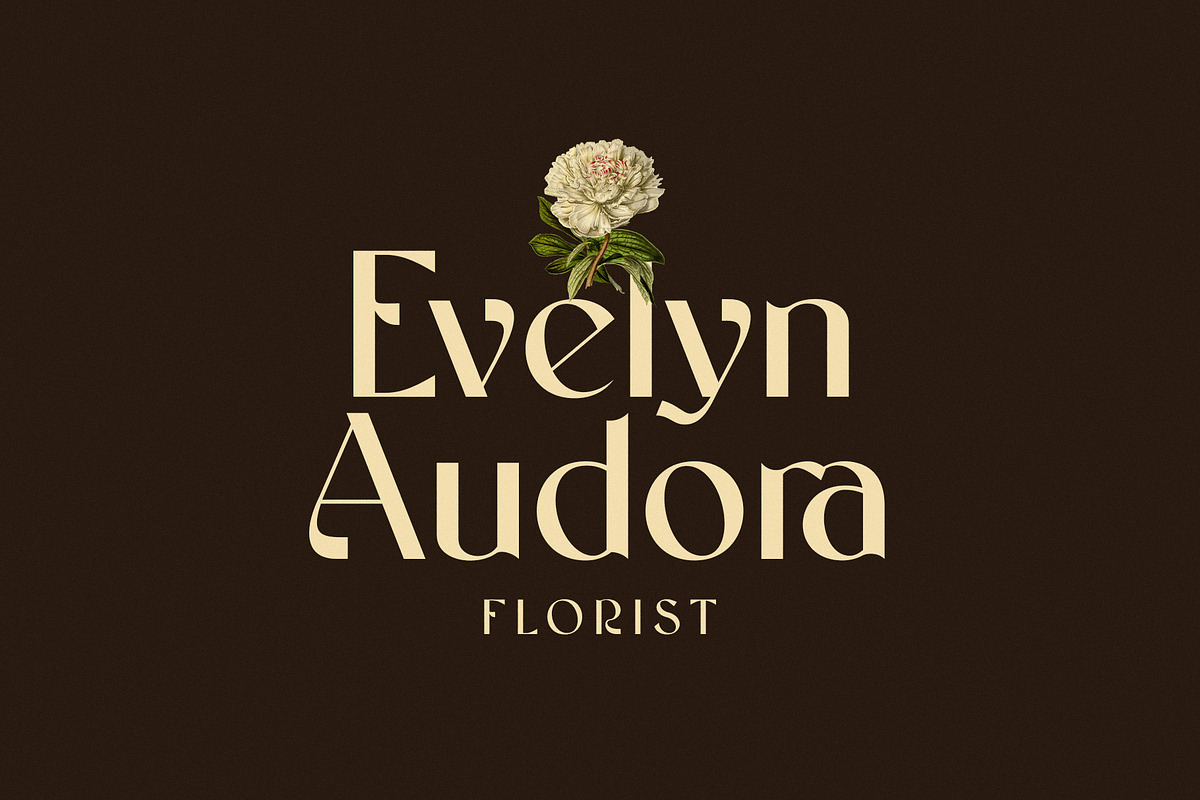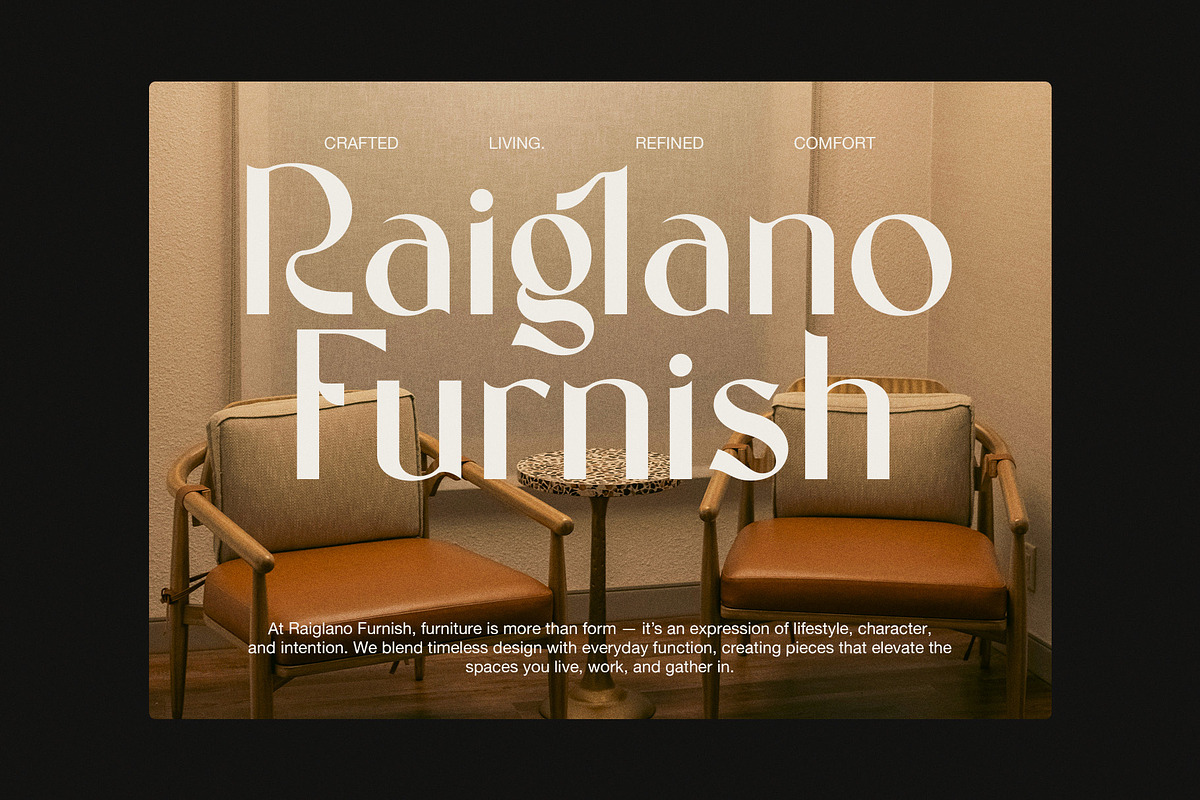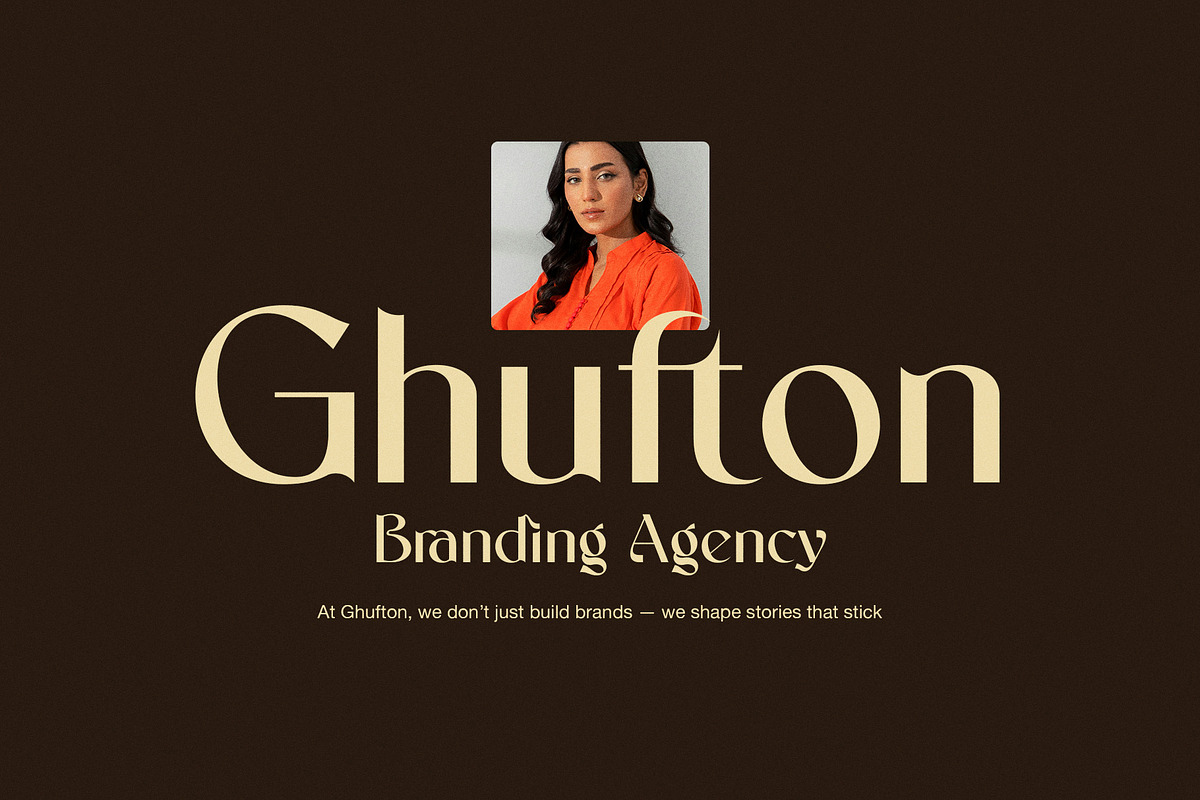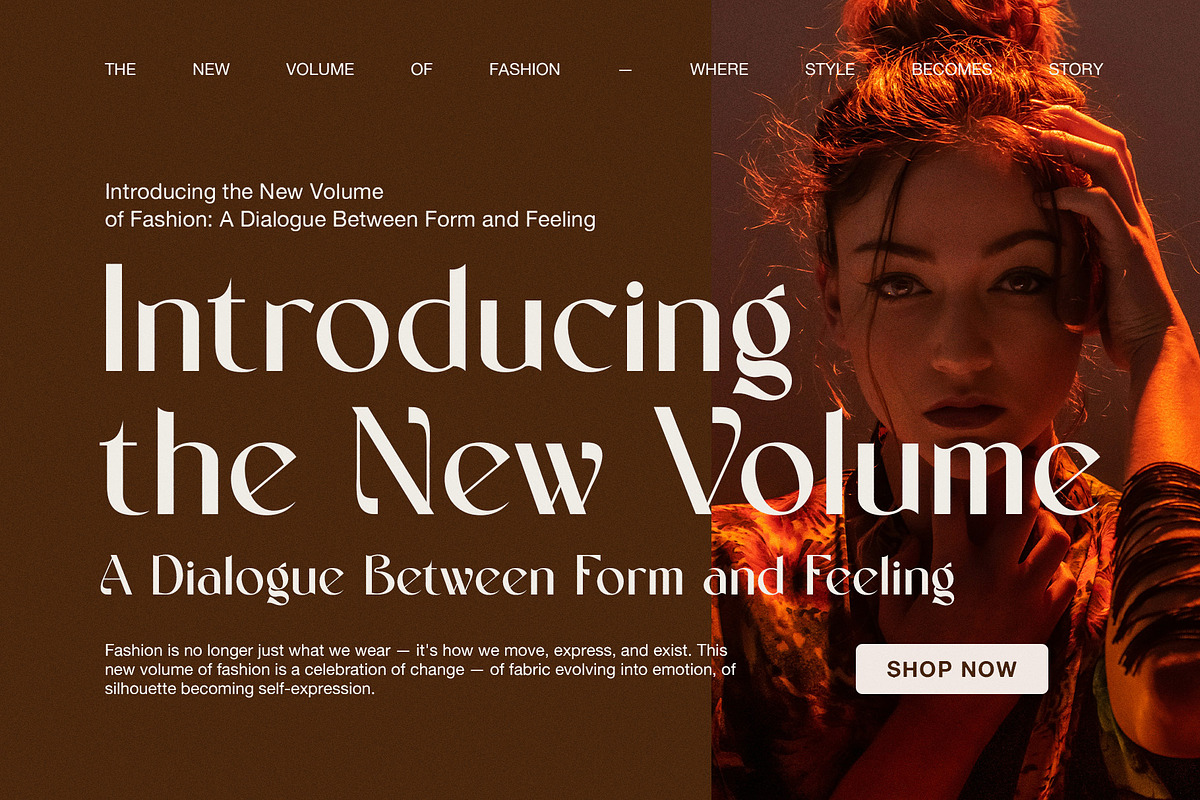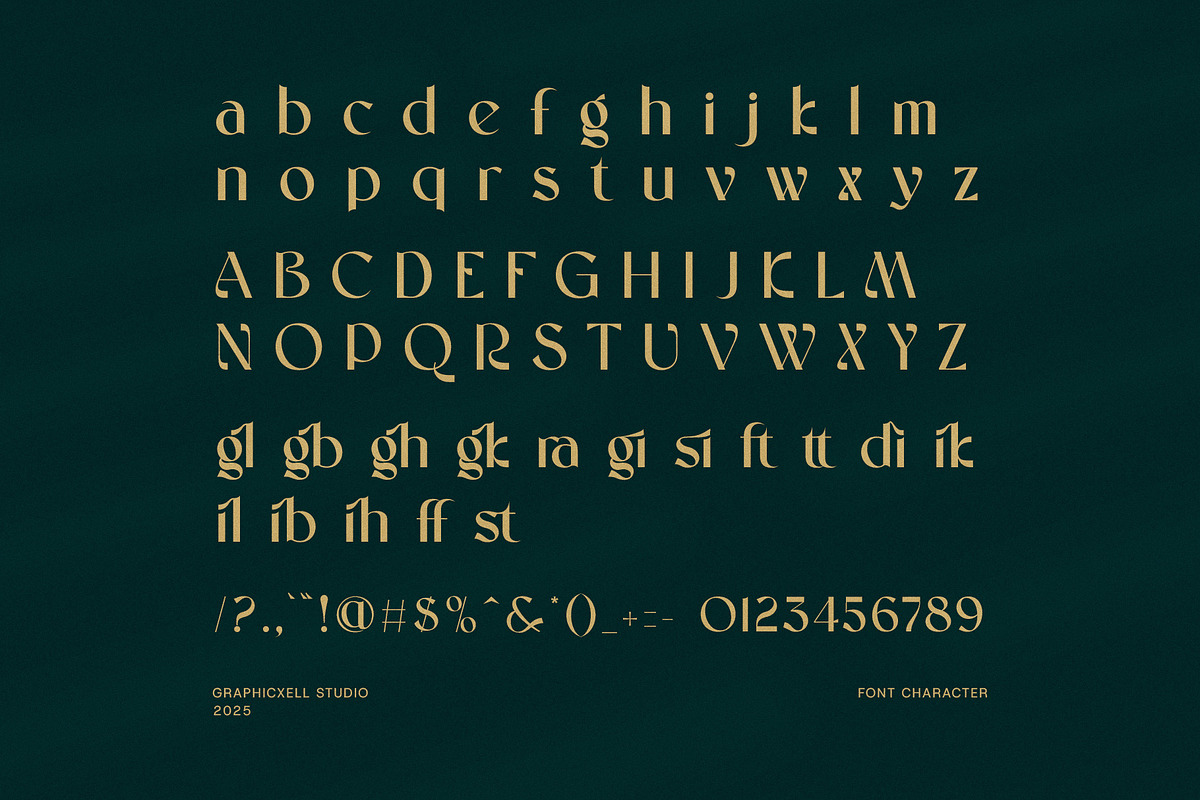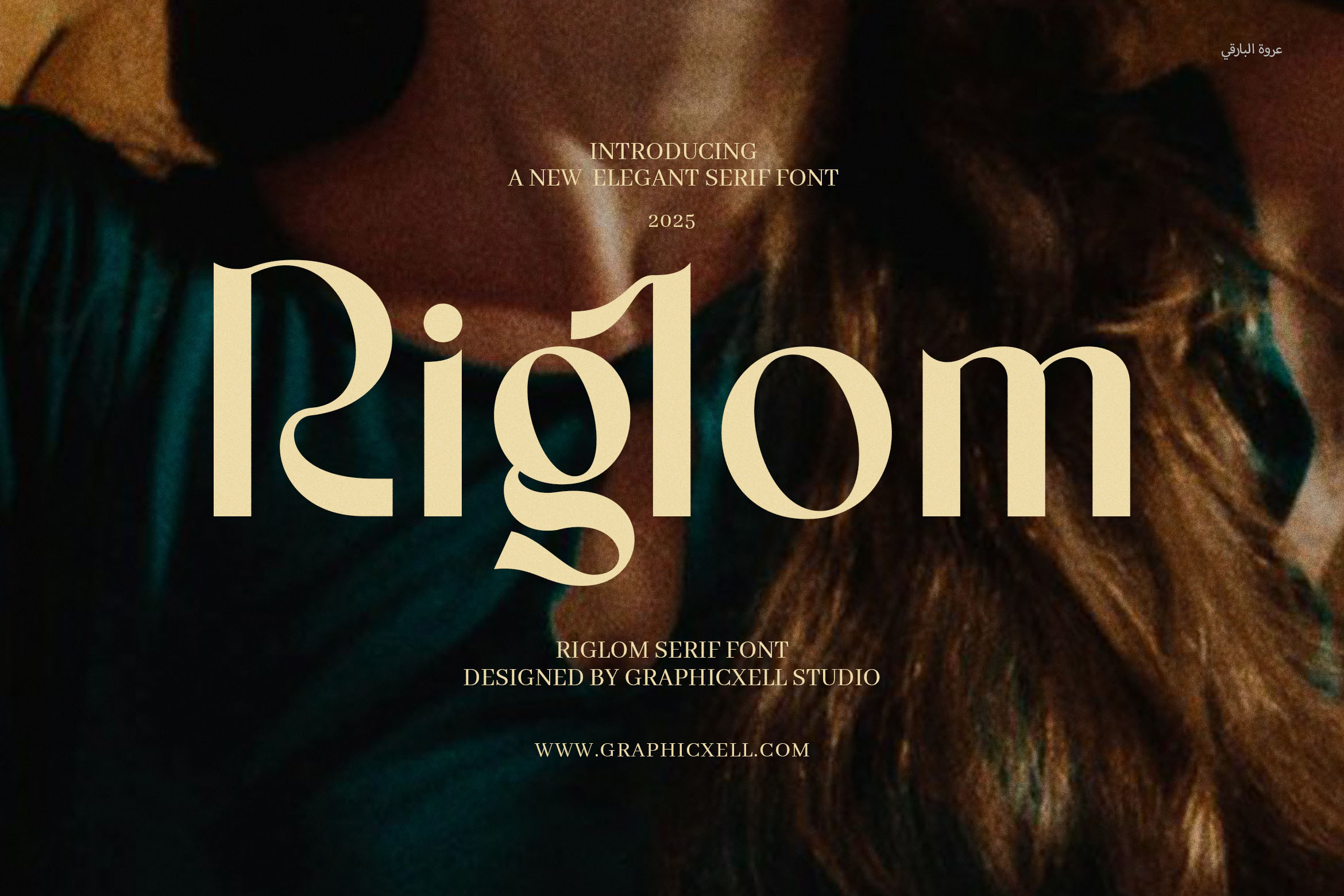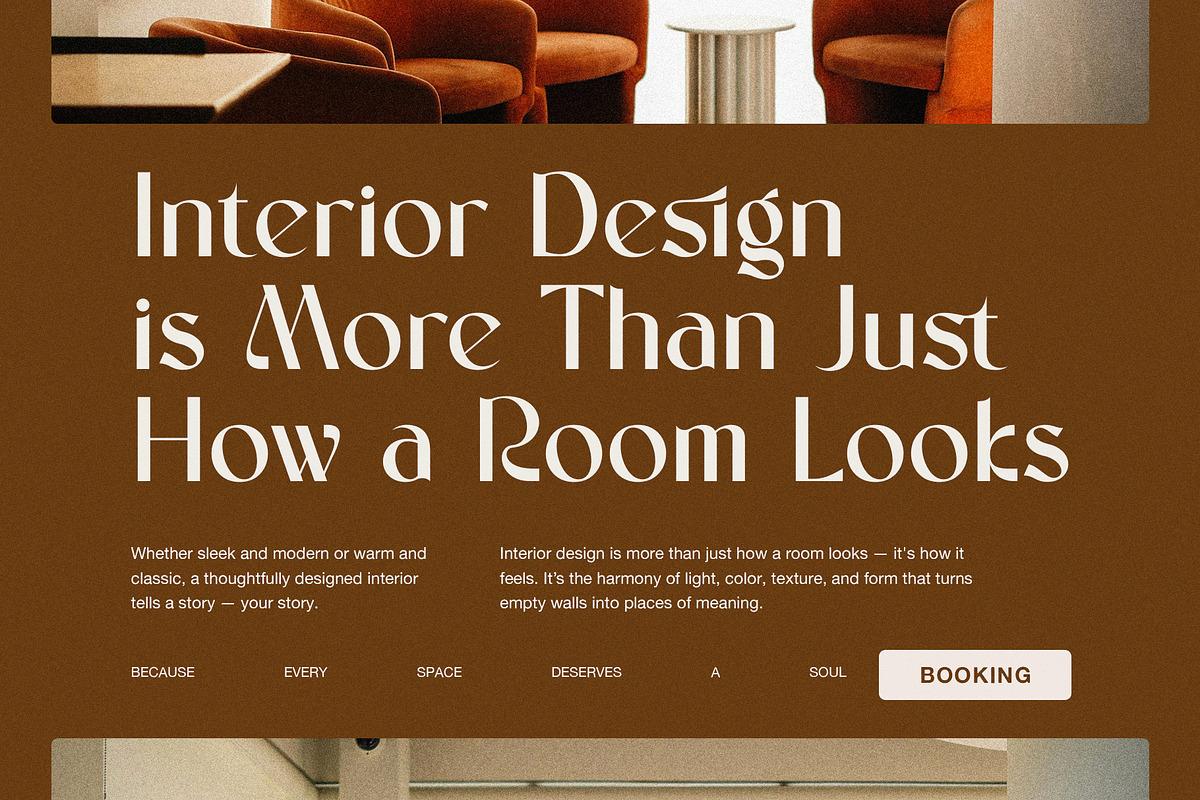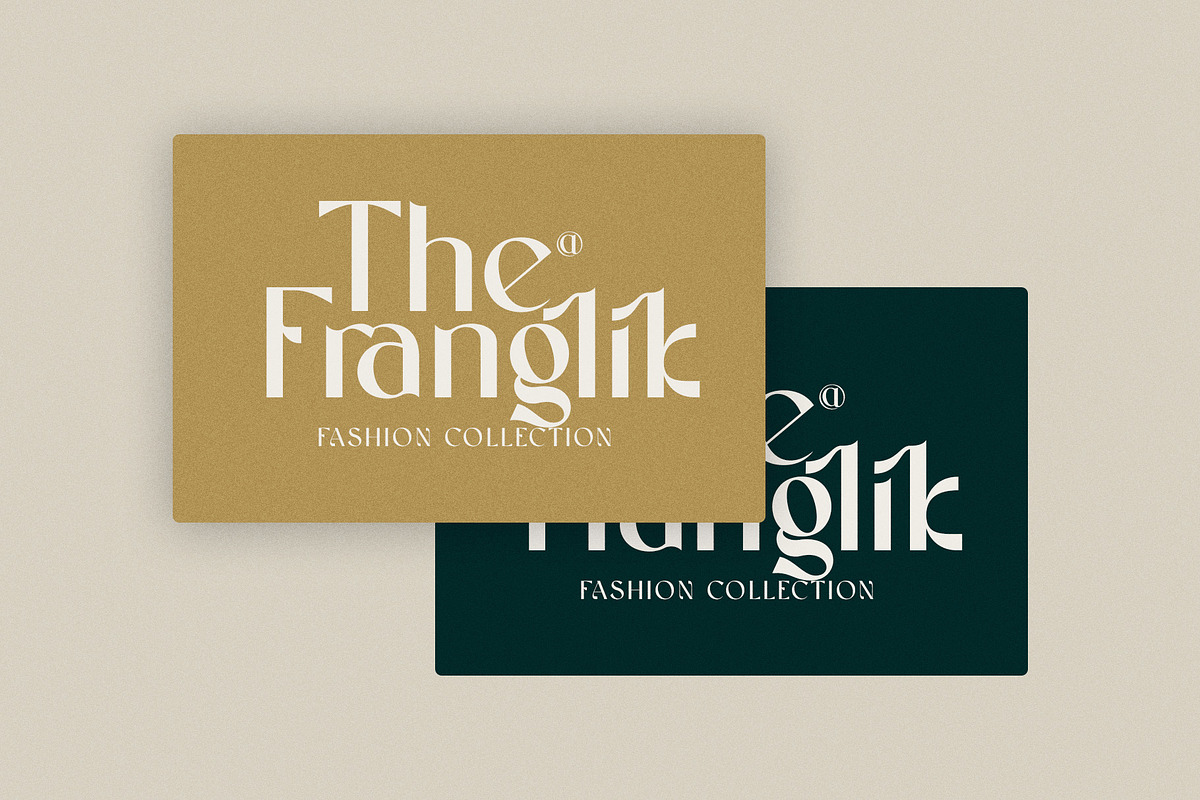
Riglom Elegant Sans Serif Font
Riglom Elegant Sans Serif Font is a stylish and contemporary serif typeface designed to bring sophistication and personality to any creative project. With its refined lines, sharp details, and graceful curves, Riglom delivers a high-end look that blends classic elegance with a modern aesthetic—perfect for brands and designers who value visual impact and timeless style.
This font is a versatile powerhouse, ideal for a wide range of applications including logo design, brand identity, website headers, packaging, editorial content, product labels, and marketing materials. Riglom adds a refined touch to everything from fashion campaigns and cosmetics branding to restaurant menus, boutique signage, and luxury advertisements.
Riglom’s distinctive letterforms create a harmonious balance between tradition and innovation. The contrast between thick and thin strokes adds drama and clarity, making it perfect for both large display sizes and refined body text. Whether you're designing for print or digital, Riglom maintains excellent legibility while still making a bold statement.
With its complete set of uppercase and lowercase characters, numerals, punctuation, and multilingual support, Riglom is ready to perform across a wide range of creative needs. It excels in editorial design, wedding stationery, social media graphics, and high-end promotional materials, helping elevate your work with a touch of refined luxury.
What sets Riglom apart is its unique blend of subtle charm and bold structure. It's a font that feels luxurious yet approachable—ideal for modern designers aiming to convey elegance, professionalism, and creativity in their visual storytelling.
Add Riglom Elegant Serif Font to your collection and bring a polished, artistic edge to your designs. Whether you're working on a minimalist layout or a bold, expressive brand identity, Riglom offers the perfect mix of elegance and versatility to help your work stand out with style and substance.